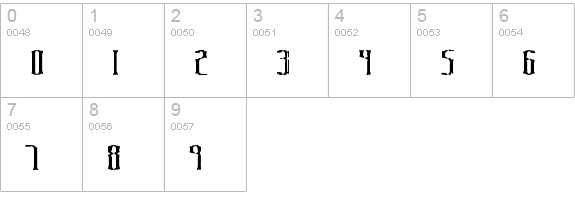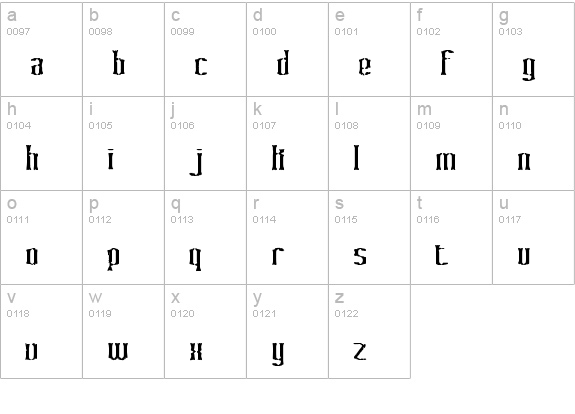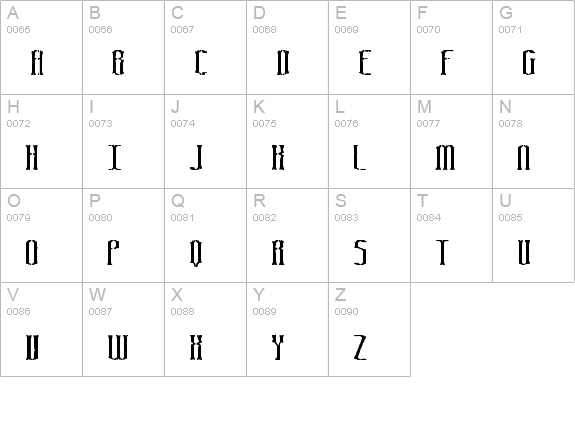
Graveyard BRK Font Details
Graveyard BRK font is a hauntingly beautiful typeface that exudes an eerie charm perfect for Halloween-themed designs, horror movie posters, and gothic-inspired projects. Its bold, angular letterforms give off a mysterious and macabre vibe, making it ideal for adding a touch of darkness to your creative projects. This unique font is available for free download at FontsMarket.com, where you can easily access and use it in your personal or commercial designs without any cost. Whether you're looking to create spooky invitations, chilling social media graphics, or unsettling web banners, Graveyard BRK font offers a versatile and striking option to elevate your design game. Embrace the darkness and unleash your creativity with this free typeface today!